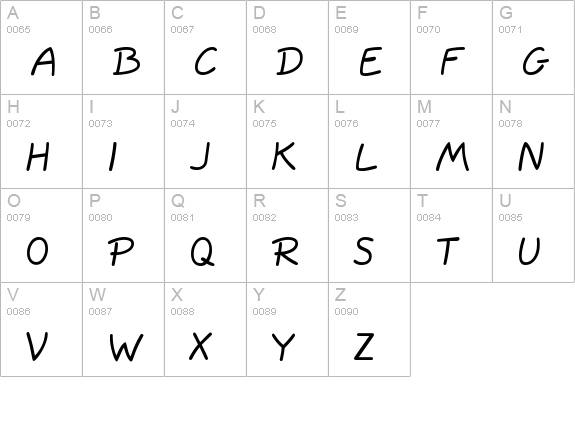
The FFX Simple HW font is a modern and clean typeface that exudes simplicity and elegance. With its sleek lines and minimalist design, this font is perfect for various design projects such as branding, logos, headers, and more. The simplicity of the FFX Simple HW font makes it versatile and easy to read, making it a great choice for both print and digital designs. What sets the FFX Simple HW font apart is that it is not only stylish and functional but also completely free to use. That's right, you can download this stunning font for free at FontsMarket.com. Whether you're a designer looking for a new font to add to your collection or just someone who appreciates beautiful typography, the FFX Simple HW font is a must-have. Don't miss out on this amazing opportunity to enhance your projects with this fantastic font.